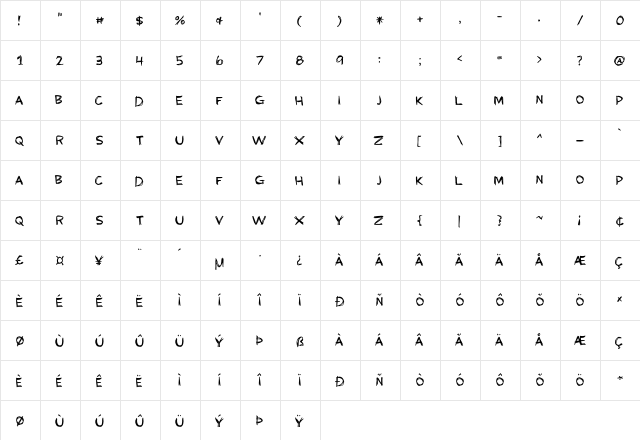
My Grandpa's Farm Regular
| Designer | Brittney Murphy |
Design Context for My Grandpa's Farm Typeface
My Grandpa's Farm is a composed and adaptable typeface that performs quietly and consistently across a wide range of design contexts.